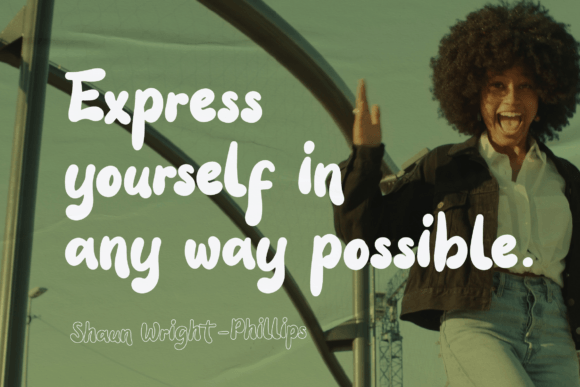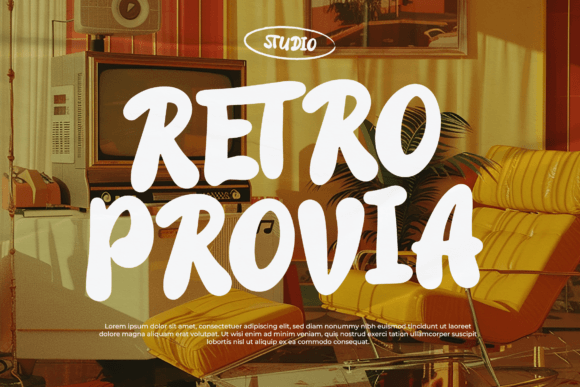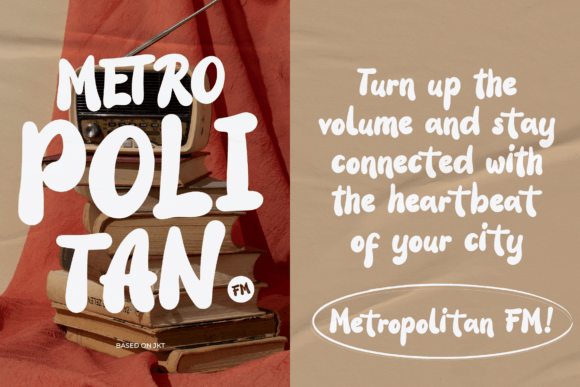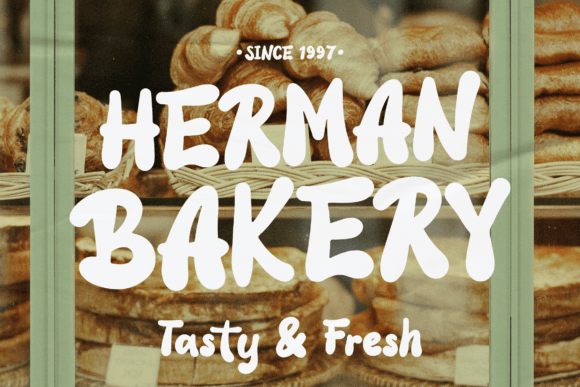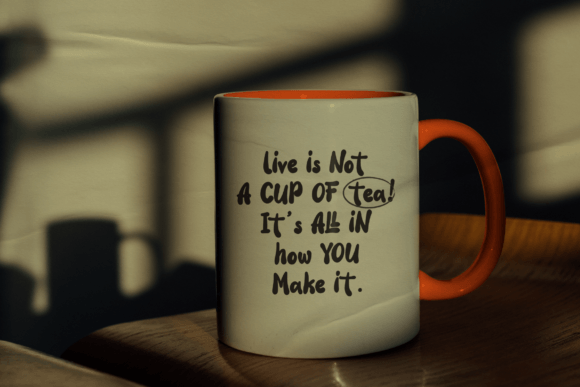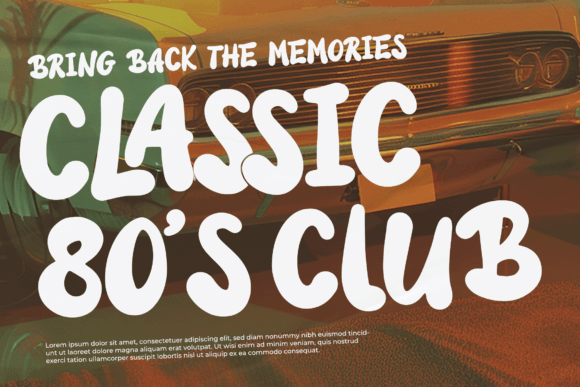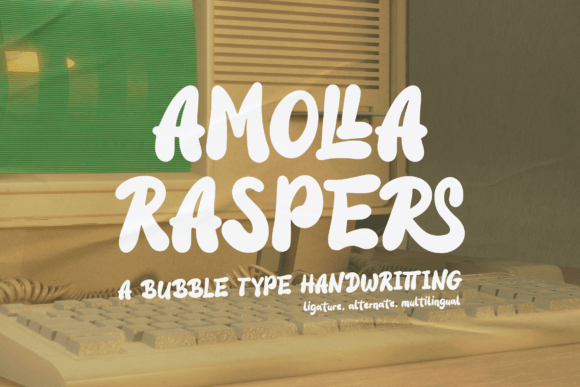
Introducing Amolla Raspers Font: The Playful Bubble-Style Handwriting Font
Are you tired of using the same old fonts for your personal notes, invitations, and designs? Look no further than Amolla Raspers Font, a playful bubble-style handwriting font that’s sure to add a touch of whimsy and fun to your projects. With its soft, rounded letters and friendly feel, Amolla Raspers is the perfect choice for designers, crafters, and anyone looking to add a personal touch to their work.
What is Amolla Raspers Font?
Amolla Raspers Font is a unique and eye-catching font that’s designed to bring a smile to your face. Its bubble-style letters are soft and rounded, giving it a friendly and casual feel that’s perfect for a wide range of projects. Whether you’re creating personal notes, invitations, or fun designs, Amolla Raspers Font is sure to make your work stand out.
Key Features of Amolla Raspers Font
- Playful bubble-style letters: Amolla Raspers Font features soft, rounded letters that give it a fun and playful feel.
- Handwritten feel: This font has a personal, handwritten feel that’s perfect for adding a touch of warmth and personality to your work.
- Easy to read: Despite its playful style, Amolla Raspers Font is easy to read and understand, making it perfect for use in a wide range of projects.
- Versatile: Amolla Raspers Font can be used for a wide range of projects, from personal notes and invitations to fun designs and crafts.
Uses for Amolla Raspers Font
Amolla Raspers Font is a versatile font that can be used for a wide range of projects. Here are a few ideas to get you started:
- Personal notes: Add a touch of personality to your personal notes and letters with Amolla Raspers Font.
- Invitations: Use Amolla Raspers Font to create fun and playful invitations for parties, events, and other special occasions.
- Fun designs: Amolla Raspers Font is perfect for use in fun designs, such as scrapbooking, card making, and other crafts.
- Social media graphics: Use Amolla Raspers Font to add a touch of personality to your social media graphics and posts.
Tips for Using Amolla Raspers Font
Here are a few tips for using Amolla Raspers Font effectively:
- Use it sparingly: Amolla Raspers Font is a playful font, so it’s best to use it sparingly to add emphasis and interest to your work.
- Pair it with other fonts: Amolla Raspers Font pairs well with other fonts, so don’t be afraid to experiment with different combinations.
- Experiment with colors: Amolla Raspers Font looks great in a wide range of colors, so don’t be afraid to experiment and find the perfect color for your project.
Amolla Raspers Font is a playful bubble-style handwriting font that’s perfect for adding a touch of whimsy and fun to your projects. With its soft, rounded letters and friendly feel, it’s the perfect choice for designers, crafters, and anyone looking to add a personal touch to their work. Whether you’re creating personal notes, invitations, or fun designs, Amolla Raspers Font is sure to make your work stand out.